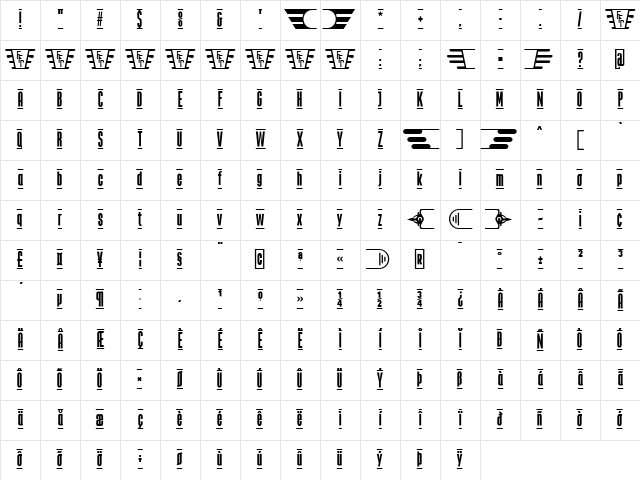
Complete The Juke Box FFP glyph index. Displaying only characters natively supported by The Juke Box FFP font.
The Juke Box is a composed and adaptable typeface that performs quietly and consistently across a wide range of design contexts.